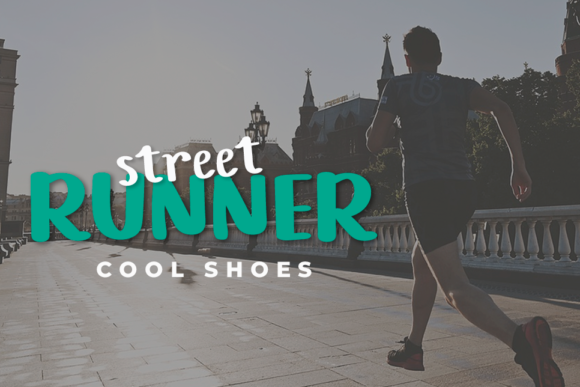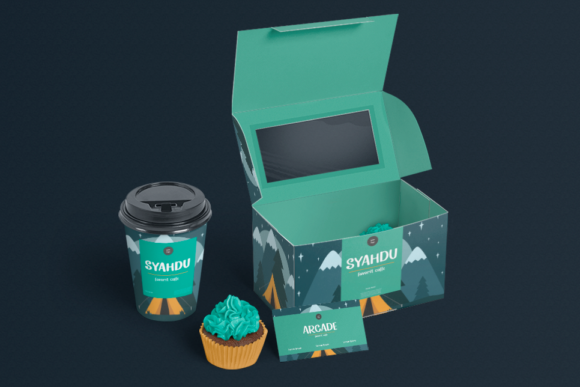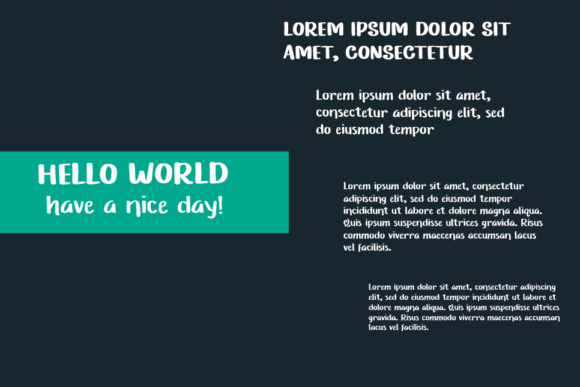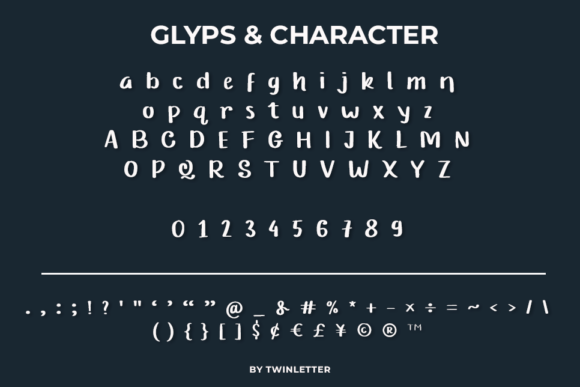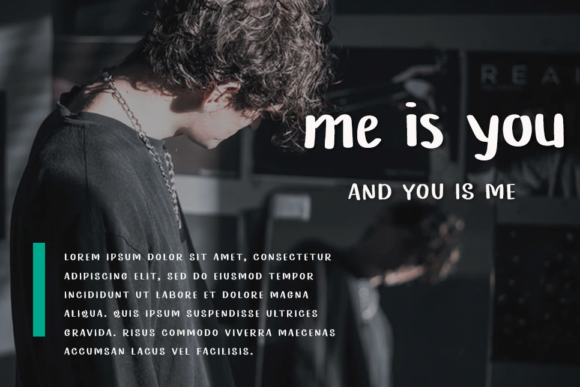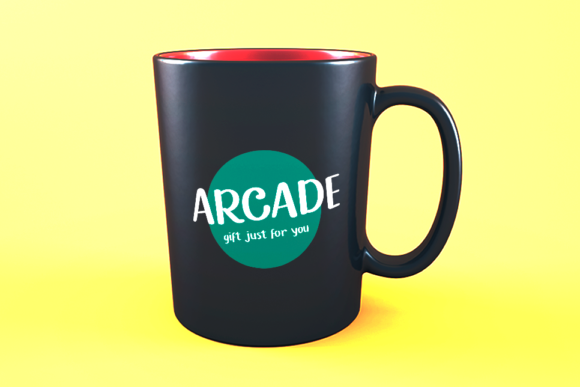
The Ultimate Guide to Arcade Font: Adding a Touch of Whimsy to Your Designs
I’ll never forget the time I was working on a logo design project for a trendy new coffee shop. My client wanted a font that was fun, casual, and would appeal to a young audience. I scoured the internet for the perfect font, but nothing seemed quite right. That was until I stumbled upon Arcade Font. ✨ This clean and quirky handwritten font has since become a staple in my design toolkit, and I’m excited to share its awesomeness with you!
Arcade Font: A Personal Review
- ✅ Clean and legible: Arcade Font is easy to read, even at small sizes.
- ✨ Quirky and fun: This font adds a touch of whimsy to any design.
- 💻 Versatile: Perfect for logos, branding, social media, and DIY projects.
- 🎨 Highly customizable: With OpenType features and glyphs, you can create unique variations.
While Arcade Font is an amazing addition to any design project, there are a few things to keep in mind:
- 🤔 Limited formal applications: This font is best suited for casual, creative projects.
- ⚠️ May not be suitable for body text: Arcade Font is best used for headlines, titles, and short paragraphs.
The Backstory of Arcade Font
Arcade Font was designed with the goal of creating a fun, casual font that’s perfect for creative projects. Inspired by classic arcade games and 80s pop culture, this font is sure to bring a smile to your face. Whether you’re a designer, crafter, or hobbyist, Arcade Font is the perfect addition to your design toolkit.
Q: What type of projects is Arcade Font best suited for?
A: Arcade Font is perfect for logos, branding, social media graphics, and DIY projects.
Q: Can I modify Arcade Font to create my own custom variations?
A: Yes, with OpenType features and glyphs, you can create unique variations of Arcade Font.